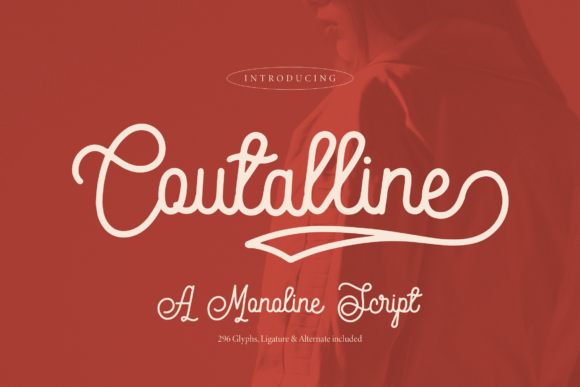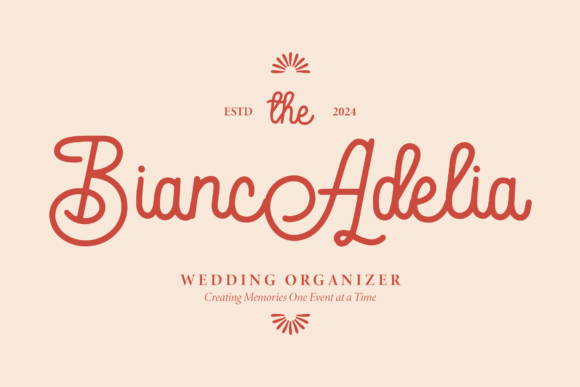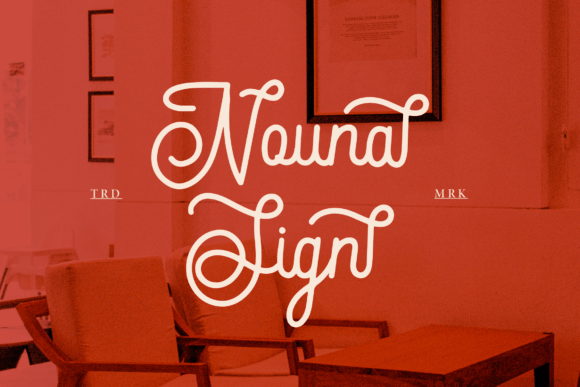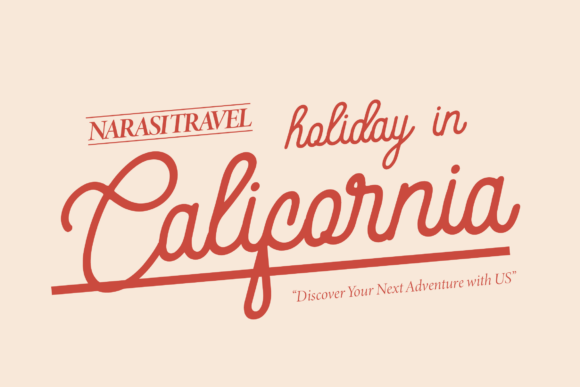
Coutalline Font: Elegant Script for Wedding Invitations & Branding
About the Coutalline Font
Get ready to be inspired by Coutalline Font, a fresh and dynamic typeface for modern creators. Coutalline is a stylish, single-line script font with smooth, flowing letters. It’s great for adding a personal, handwritten feel to designs, perfect for logos, invitations, and quotes.
Coutalline excels in applications requiring a touch of elegance and personality, such as logos, wedding invitations, short quotes on social media graphics, or even stylish product packaging. Its flowing nature makes it unsuitable for large blocks of text or body copy; readability suffers at smaller sizes. Avoid using it in UI design or for lengthy documents.
Its inherent sophistication is best complemented by pairing it with a clean sans-serif like Montserrat for a modern feel, or a classic serif like Garamond for a more traditional look. A geometric sans-serif such as Futura could offer a striking contrast, while a simple, understated serif provides a grounding element that balances Coutalline’s expressive strokes.
Coutalline projects a sophisticated yet approachable personality, leaning towards elegance and a touch of romanticism. Brands focused on luxury goods, artisanal crafts, or events that emphasize personal expression would find it particularly fitting.
Coutalline Font Usage Examples
Coutalline Font Example